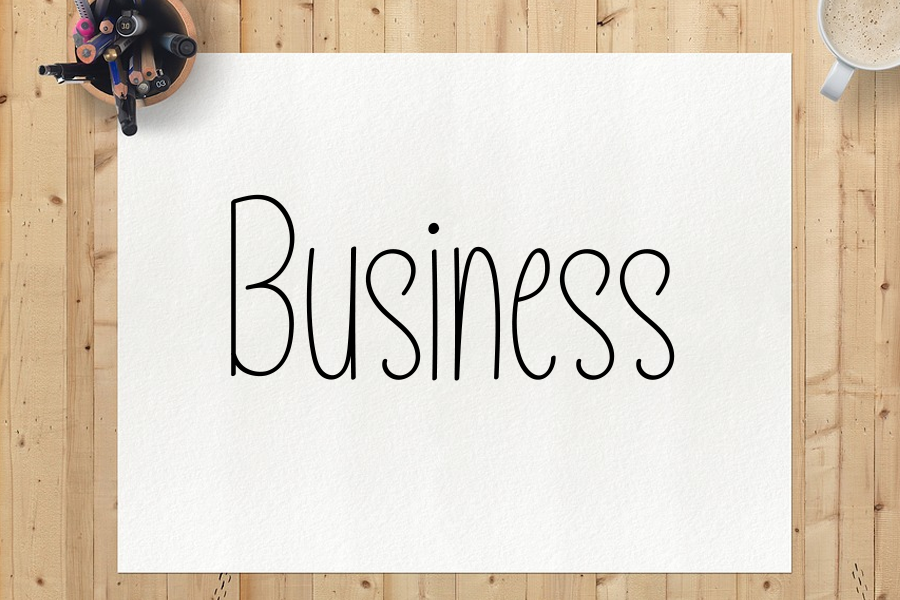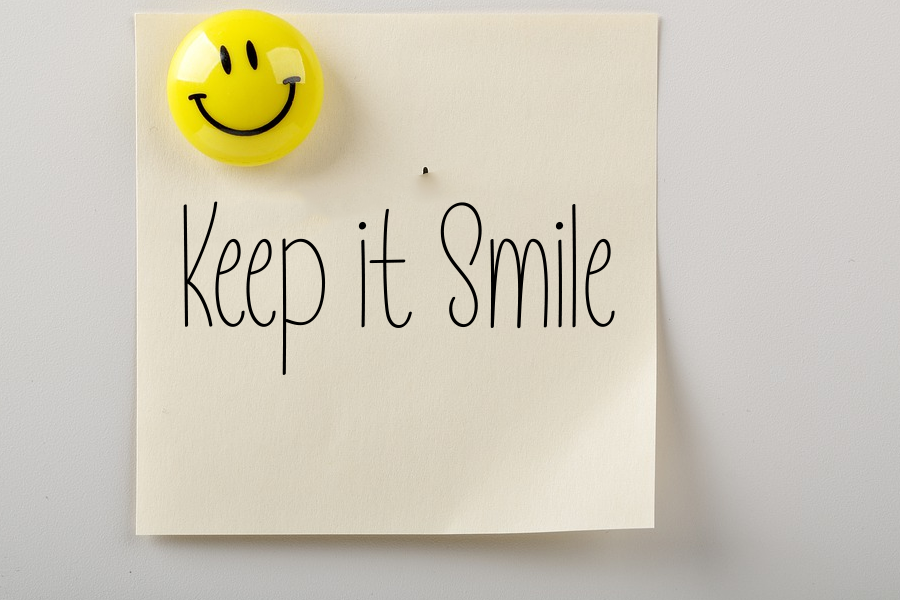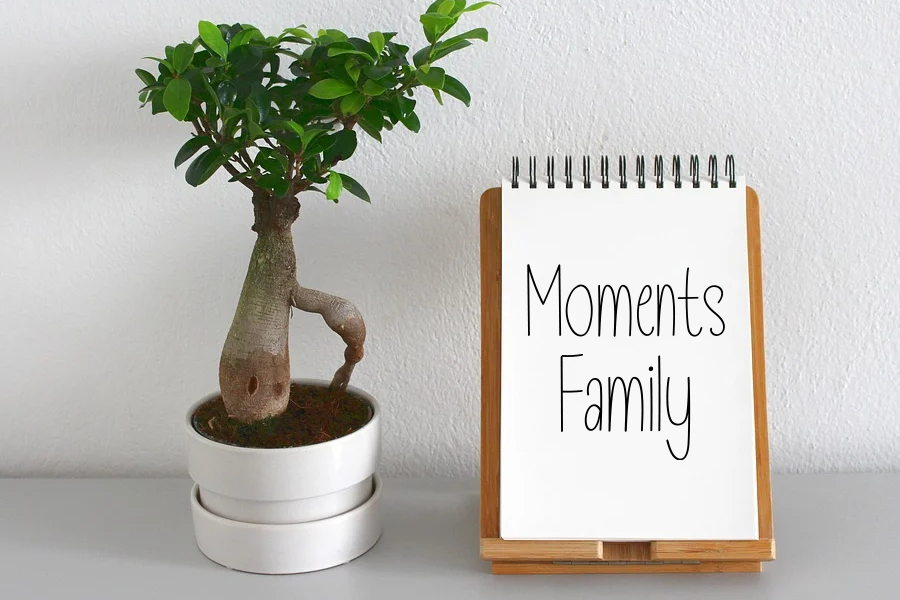
Sunday Funday Display Font
This is a delicate handwritten font that has a modern yet whimsical style. It will undoubtedly immerse your designs into a frail, magical world.
It’s a simple handwriting perfect for weddings, wall hangings, decorations, products and more